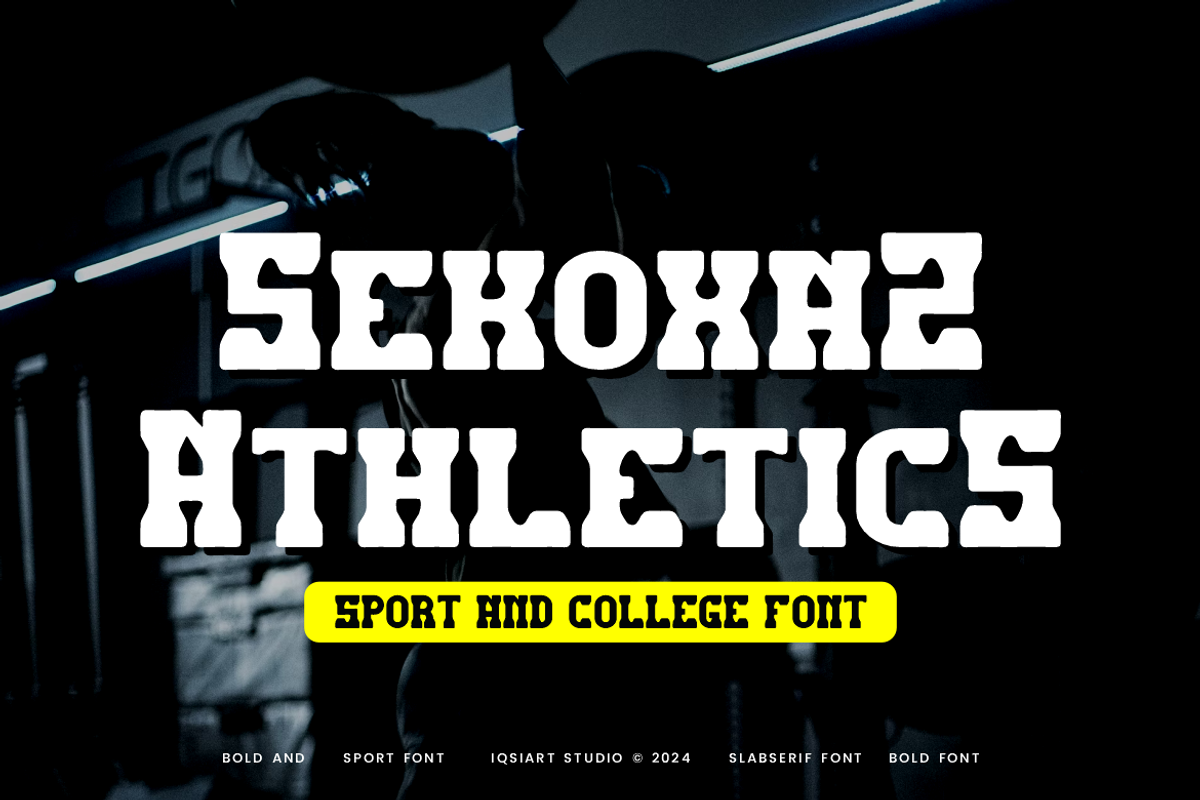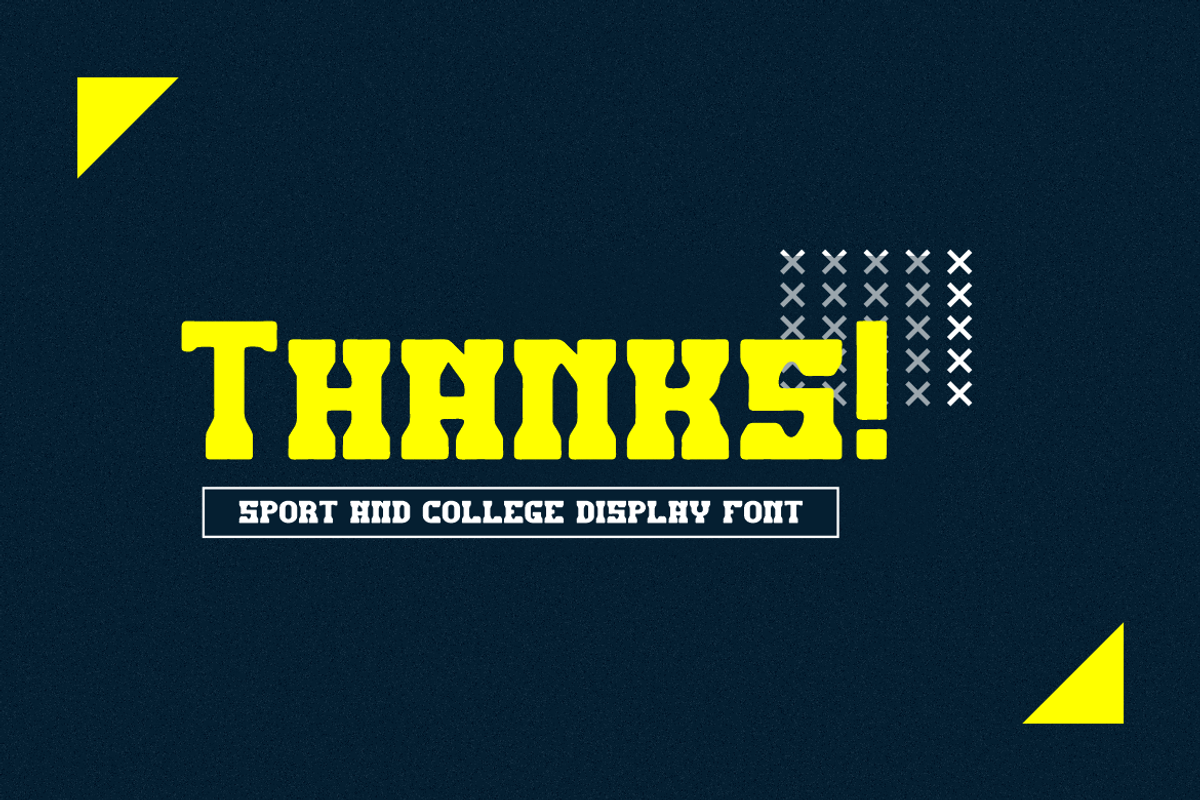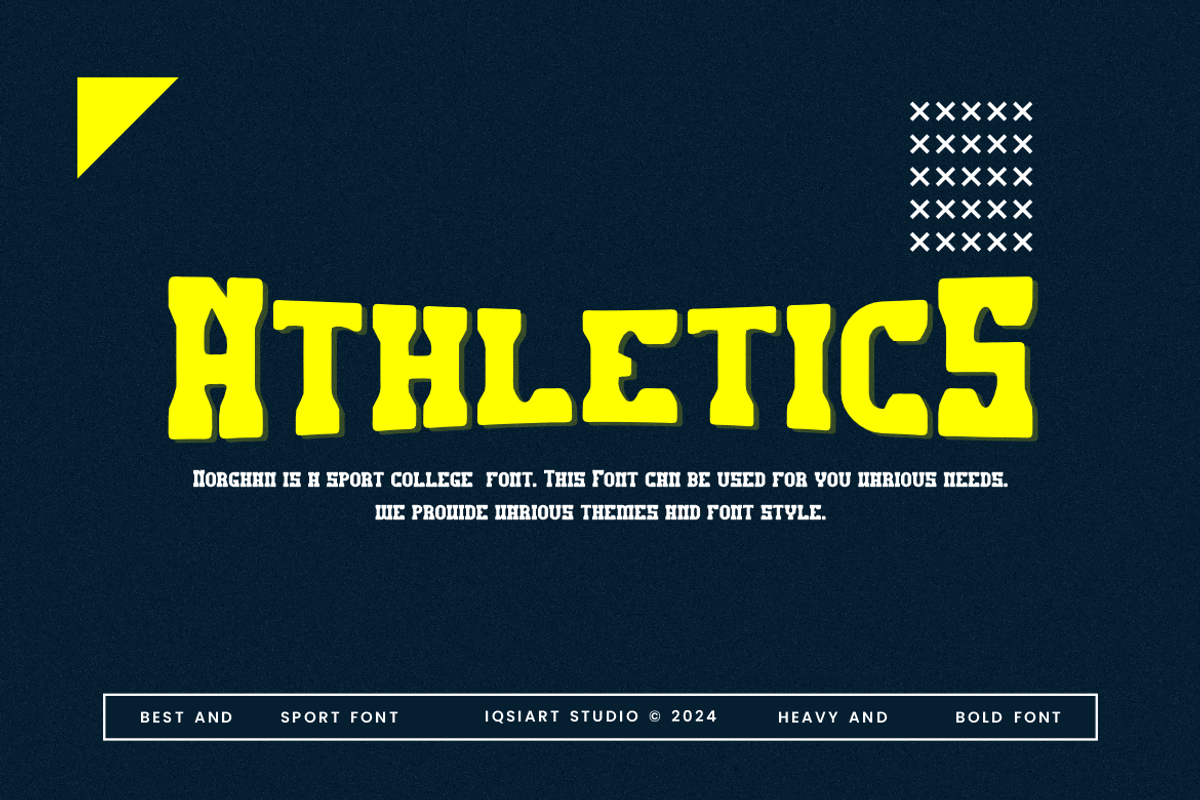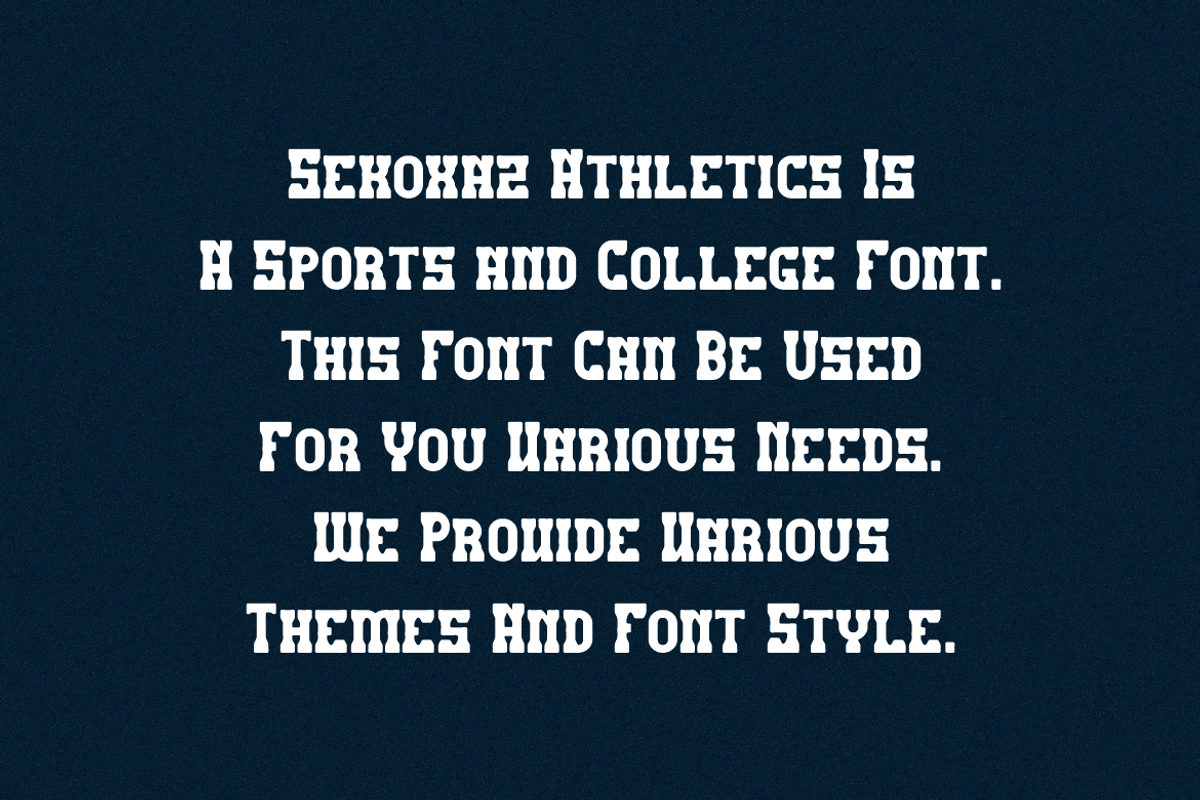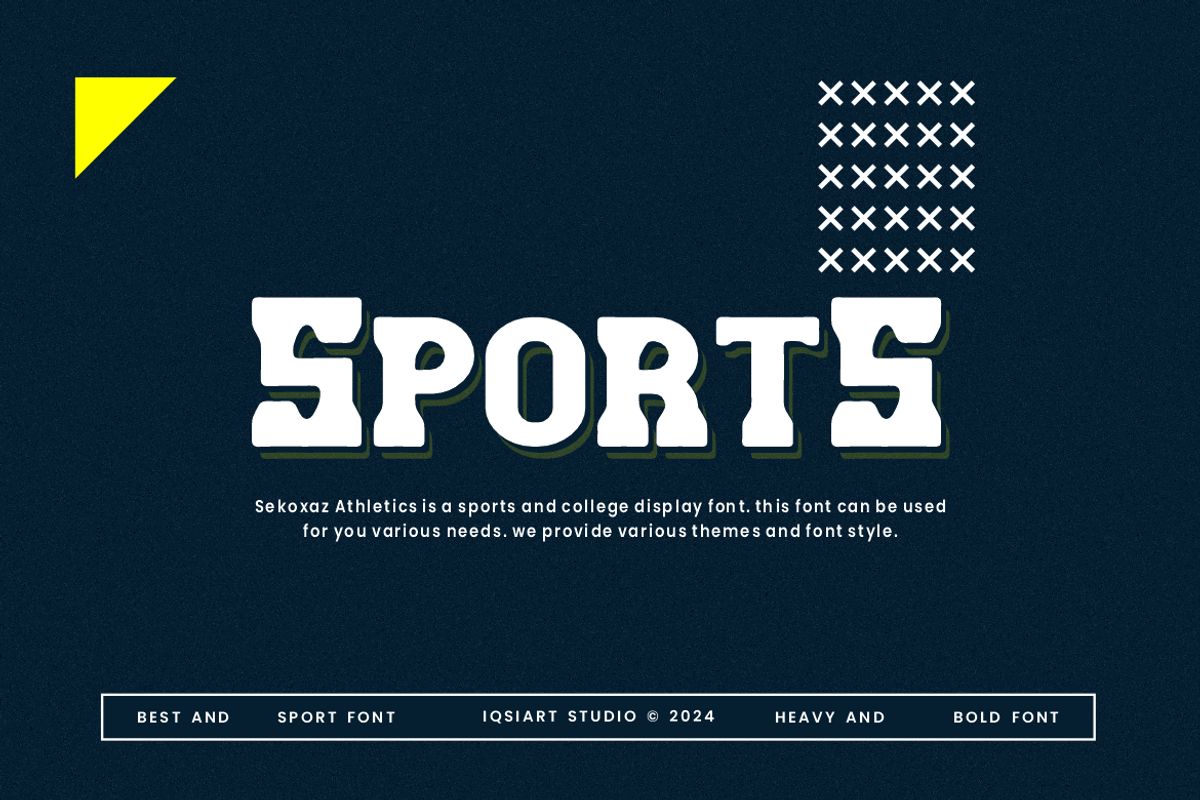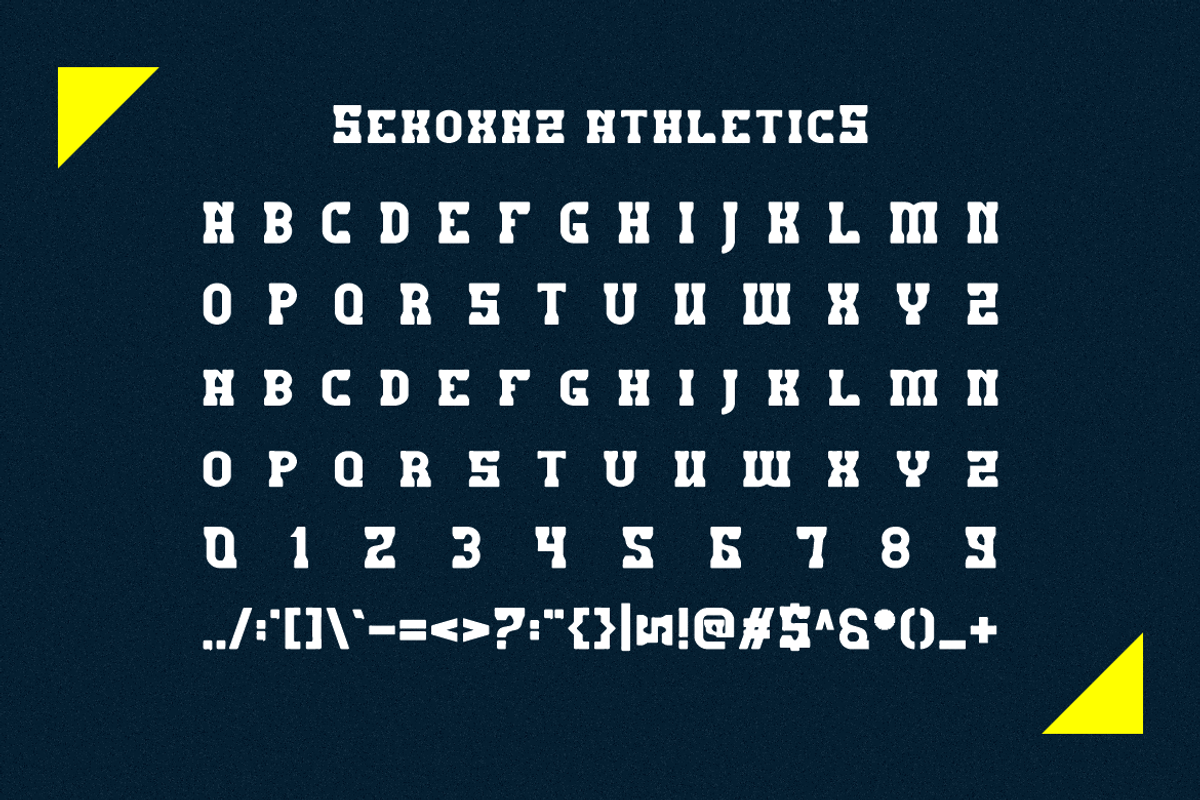
Sekoxaz Athletics - Sport Font
Sekoxaz Athletics Font is a best and authentic display font. This font can be used for your various needs. We provide various themes and font styles. visit our profile to get a wide variety of themes and different font styles you need.